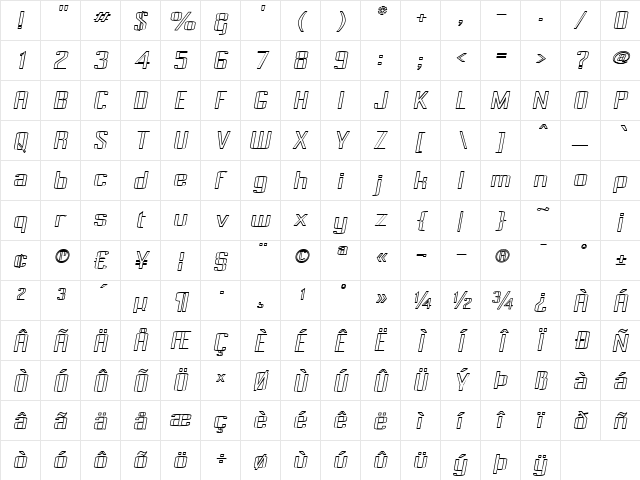
Pecot Outline Oblique Regular
Design Context for Pecot Outline Oblique Typeface
Pecot Outline Oblique is built around its visual character rather than neutral utility — its distinctive forms are designed to make an impression at display sizes. The dynamic lean of this cut emphasises speed and emphasis in any layout.
Font Pairing: Pair with a clean neutral sans-serif for body copy to let Pecot Outline Oblique's character lead without overwhelming the composition.
Pro Tip: Treat Pecot Outline Oblique as the centrepiece of your typographic hierarchy. One strong heading set in a decorative face can carry an entire layout.